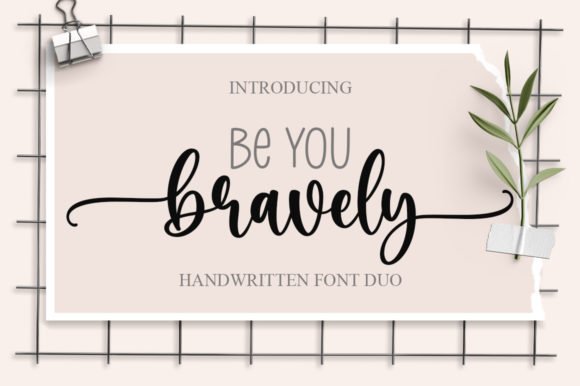
Unleash Your Creativity with Be You Bravely Font
There’s nothing quite like the thrill of watching your creative vision come to life. Whether you’re a seasoned designer or a crafty enthusiast, the moment you see your ideas take shape is pure magic. For many of us, it’s the spark that sets our imagination ablaze, inspiring us to push beyond our limits and create something truly special.
Enter Be You Bravely Font, a beautiful duo of fonts designed to complement each other perfectly. This dynamic duo is the perfect addition to any project, adding a chic and cheery touch that’s sure to delight. With its PUA encoding, you can access all glyphs and swashes with ease, making it a valuable tool for designers who want to take their craft to the next level.
Key Features of Be You Bravely Font
- Unique Characteristics: Be You Bravely Font features a bold and empowering script, with intricate details and flourishes that make it perfect for quotes, titles, and headings.
- Character Set: The font includes a comprehensive character set, including uppercase and lowercase letters, numbers, punctuation, and special characters, making it suitable for a wide range of applications.
- Font Style: Be You Bravely Font comes in a single style, but its versatility and expressiveness make it suitable for a variety of design projects, from elegant and sophisticated to bold and playful.
Be You Bravely Font Review
I was excited to dive into the “Be You Bravely Font” and see what it had to offer. As a designer, I’m always on the lookout for unique and inspiring fonts to add to my toolkit.
What works well: ✨ The font has a bold, confident feel that’s perfect for headlines and titles. The curves and lines are well-balanced, making it easy to read. I also appreciate the variety of weights and styles available, which allows for a lot of creative freedom. ✨ The font is also highly customizable, making it easy to adjust to any design need.
What doesn’t work well: ⚠️ While the font is bold and confident, it can feel a bit overwhelming in smaller text sizes. Additionally, some of the weights and styles can feel a bit inconsistent, which can be jarring to the eye. ⚠️ I also wish there were more language support options available, as it’s currently only available in a limited number of languages.
Overall, I think “Be You Bravely Font” is a solid choice for designers looking for a bold and confident font. While it has some limitations, the benefits far outweigh the drawbacks. With a bit of tweaking and adjustment, this font can be a real game-changer for your designs.
- Bold, confident feel perfect for headlines and titles
- Well-balanced curves and lines for easy readability
- Available in a variety of weights and styles
- Language support available in limited number of languages
Practical Application Guide: “Be You Bravely Font”
For optimal results, use the “Be You Bravely Font” in bold or italic styles to add emphasis and visual interest to your text.
Combine the font with a bold color scheme to create a striking visual effect.
The “Be You Bravely Font” is perfect for:
- Motivational quotes and posters
- Personal branding and identity
- Marketing and advertising materials
Project 1: Empowerment Quote Wall Art
Create a motivational wall art piece using the Be You Bravely Font. This project is perfect for those who want to spread positivity and encouragement in their homes or offices.
Project 2: Personalized Journal Cover
Create a unique and personalized journal cover using the Be You Bravely Font. This project is perfect for journalers, writers, and artists who want to add a touch of personality to their notebooks.